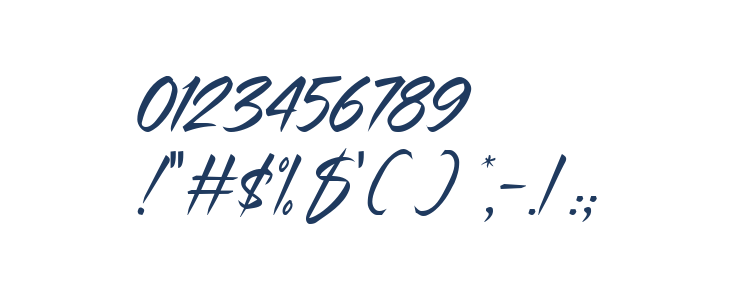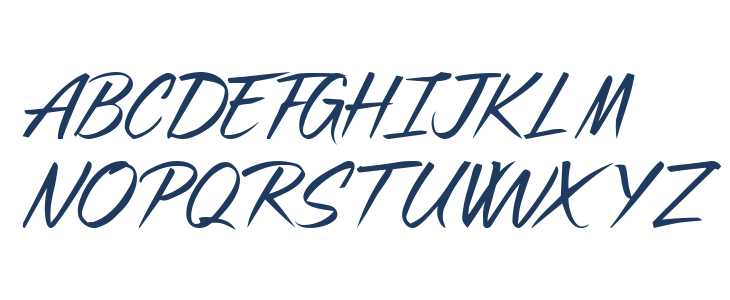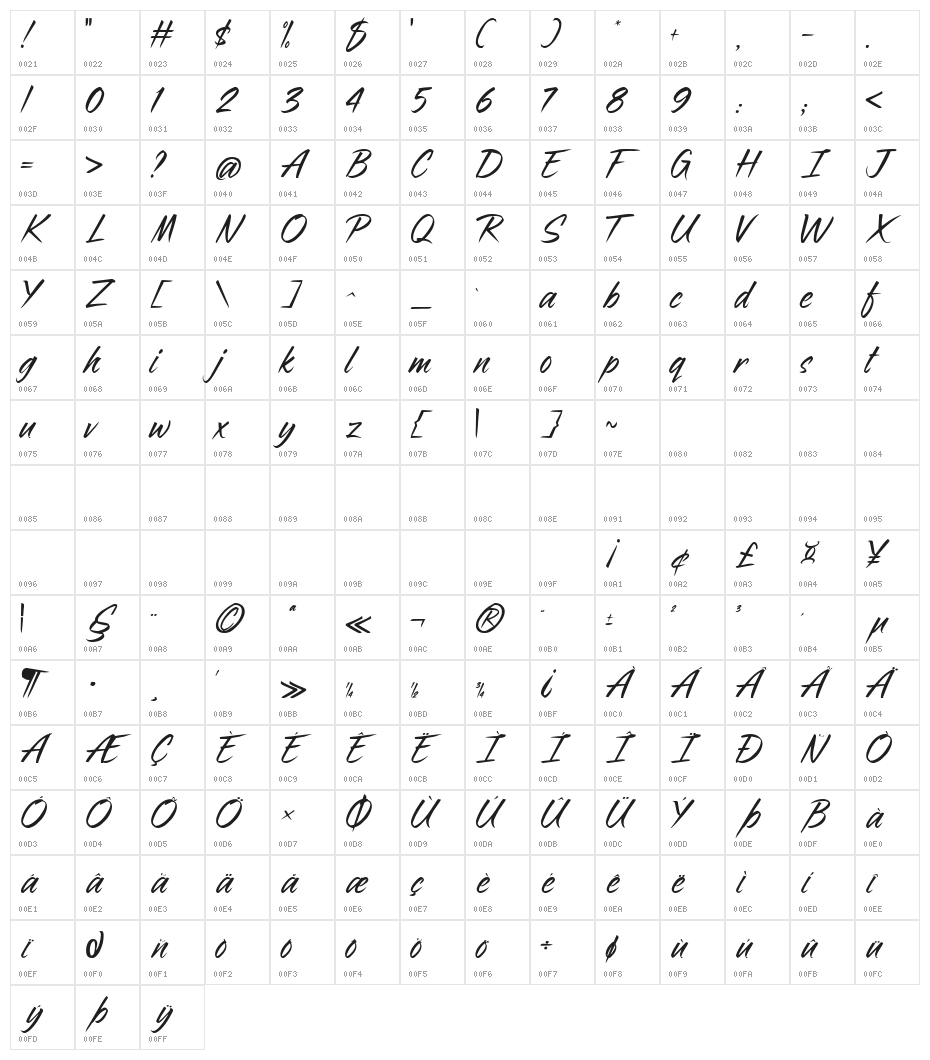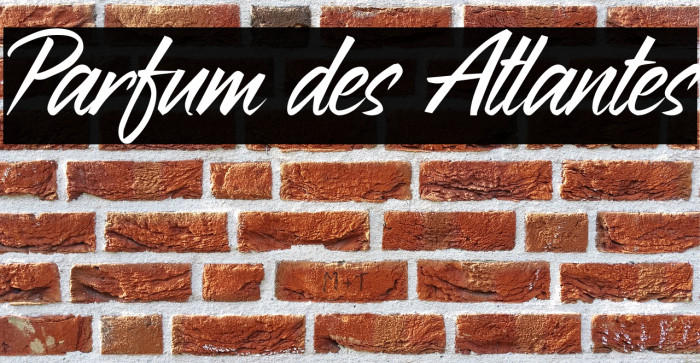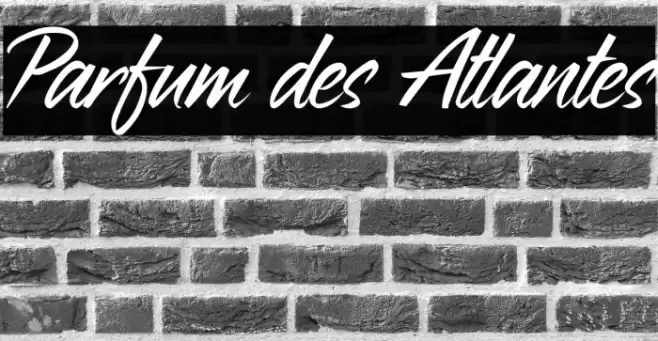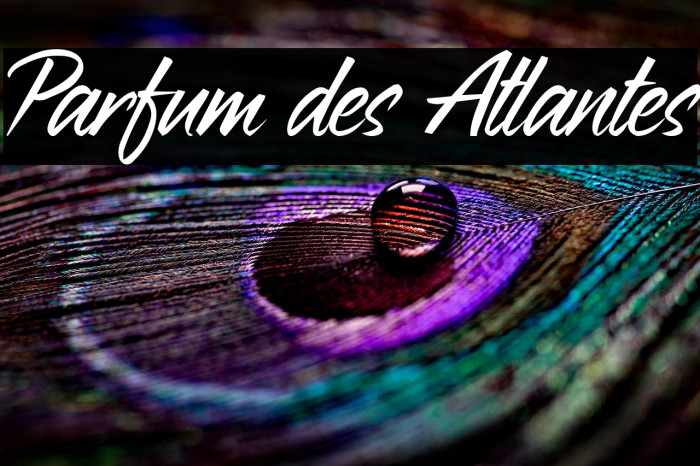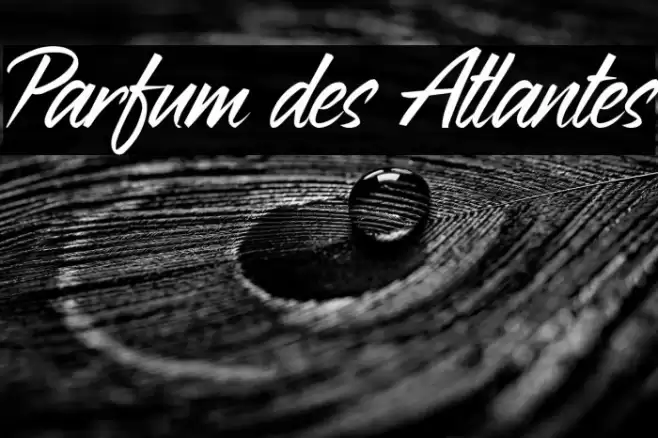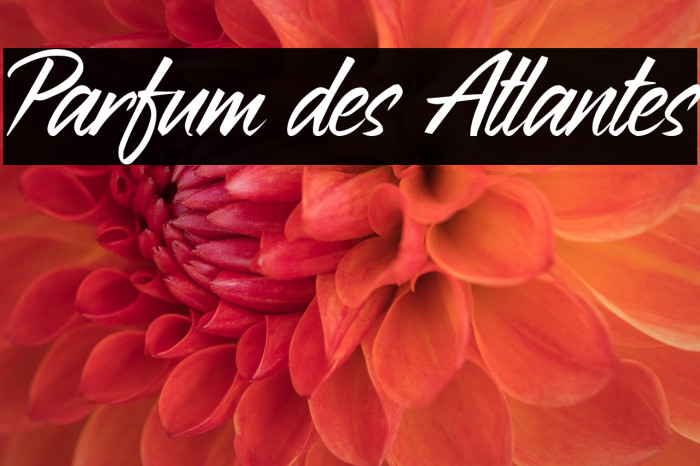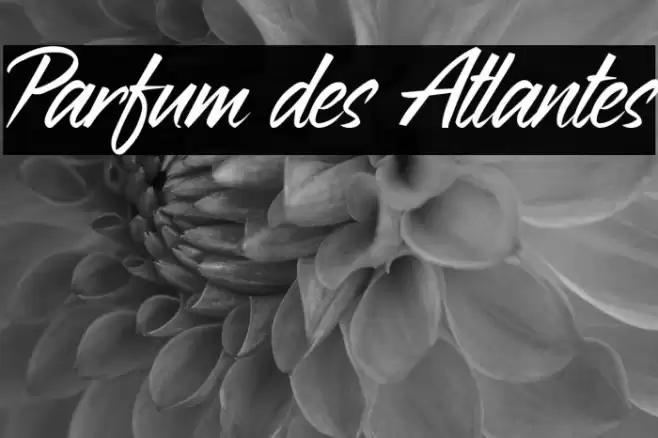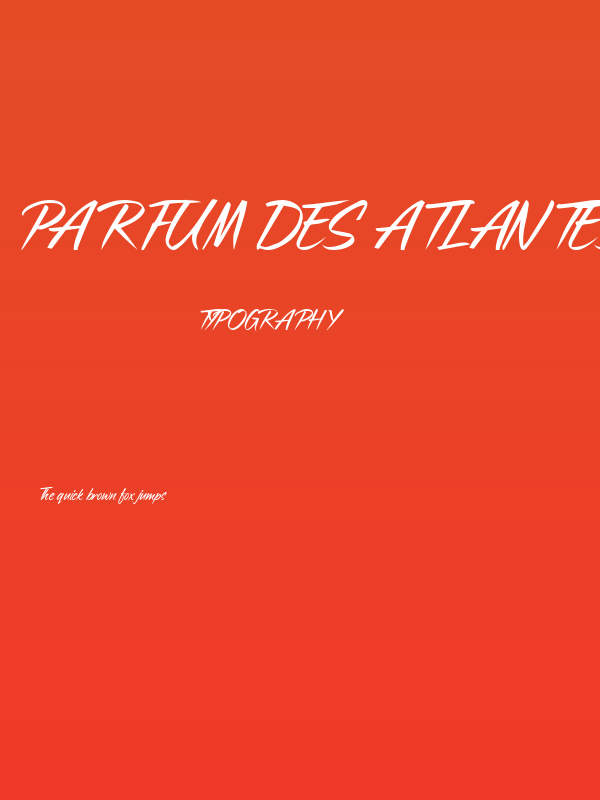
Parfum des Atlantes Font
Parfum des Atlantes Description
A casual, handwritten script font with a smooth, flowing style.
| Overall Style | Casual, Handwritten, Script |
| Use Case | Headlines, Body text, Logos, Invitations |